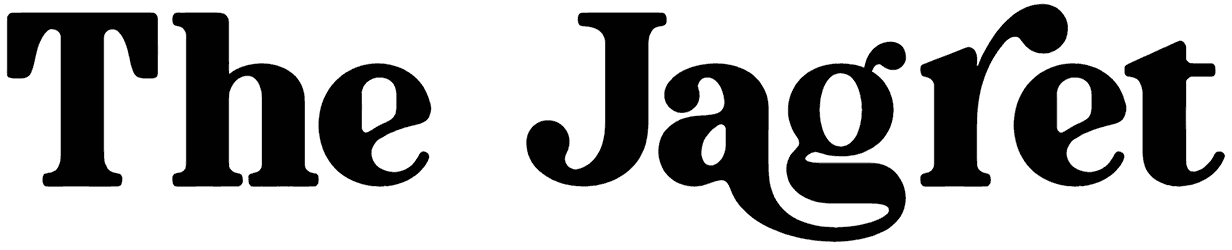
The Jagret Font
If you are looking for a bold, decorated serif font, the Jarget font is here for you. It feels retro, firm, and stable with an impressive look that gathers all the attention on your project at once.
This retro font will work perfectly for movie posters, advertisements, T-shirt prints, logotypes, and all those designs that want a nostalgic flavor. So bring your imagination to the real world and enjoy designing.